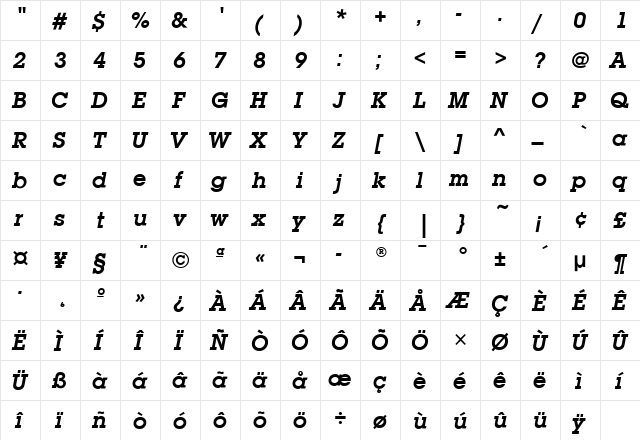
LubalinGraphITC Demi Italic Font Preview
LubalinGraphITC Demi Italic
LubalinGraphITC Demi Italic Font Details
| Style | Demi Italic |
Design Context for LubalinGraphITC Typeface
LubalinGraphITC is a composed and adaptable typeface that performs quietly and consistently across a wide range of design contexts. The dynamic lean of this cut emphasises speed and emphasis in any layout.